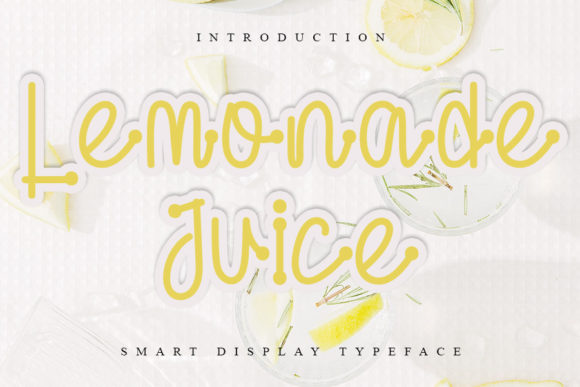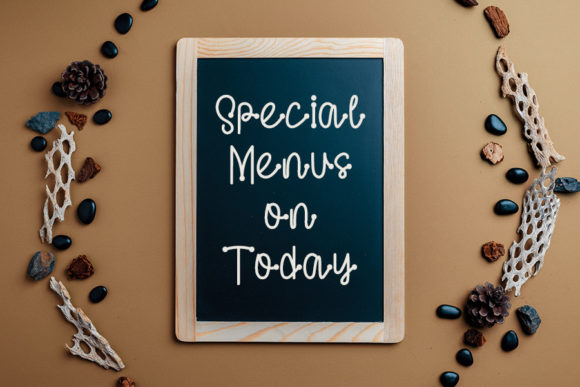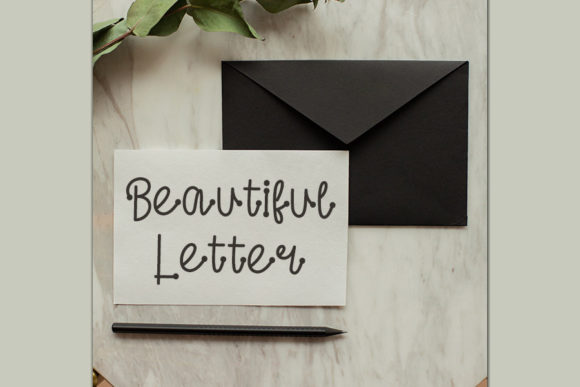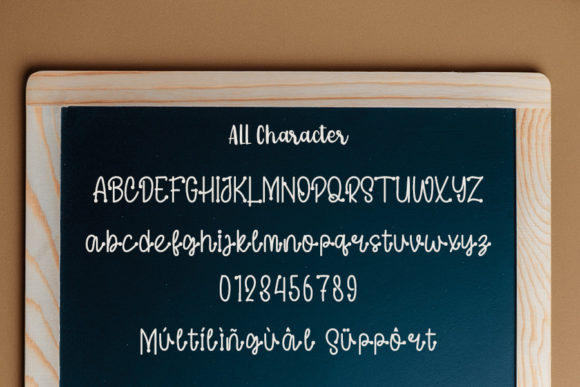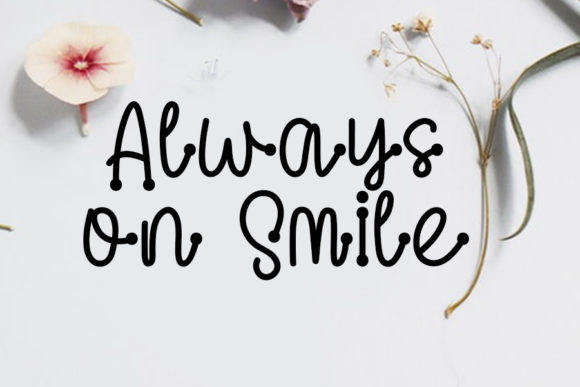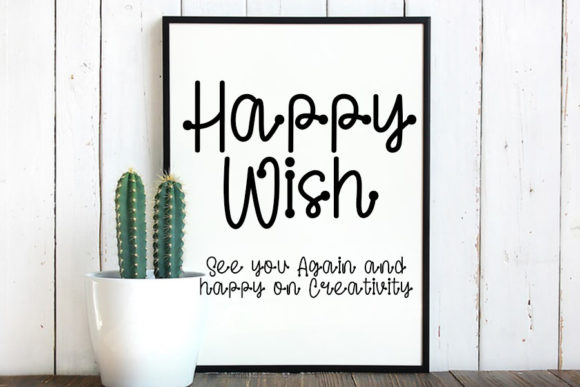
Lemonade Juice Font
About Lemonade Juice Font
Lemonade Juice is a lovely and delicate handwritten font that exudes elegance and class. This font was particularly crafted for those who need a beautiful and refreshing look to their designs.